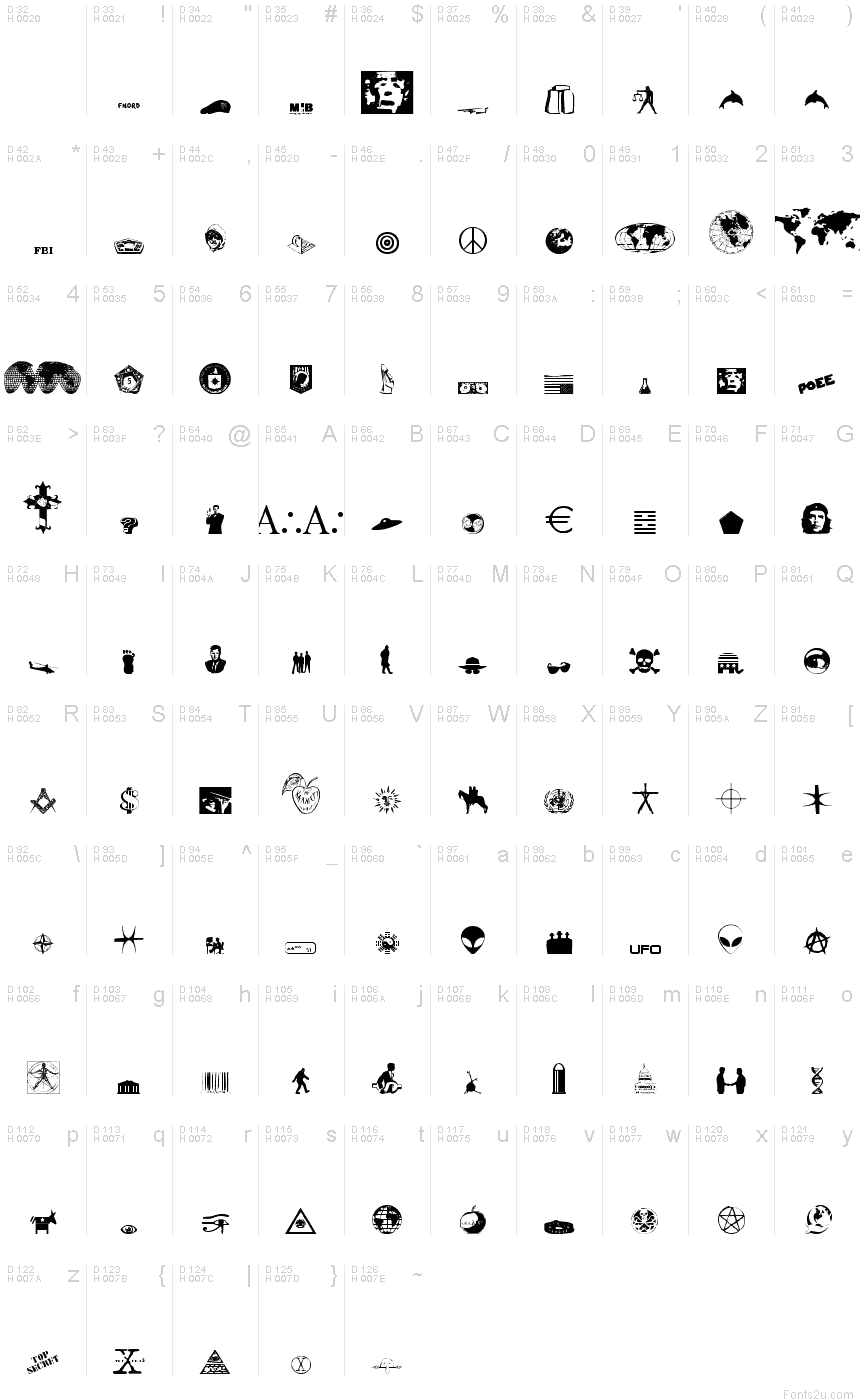
Illuminati
Illuminati font by Iconian Fonts is a free dingbat typeface packed with bold, conspiracy-tinged icons. Each glyph feels like a stark, inky stamp: bullets, footprints, bitten apples, government buildings and other symbols rendered in chunky black shapes with crisp white cuts. The style is unapologetically graphic and slightly gritty, giving your layouts the punch of protest stickers or photocopied zines.
Using Illuminati as spot graphics instantly adds tension and intrigue to posters, flyers, protest art, editorial spreads, game UI, social media graphics, and album covers. The symbols read clearly even at small sizes, but they really snap when scaled up and dropped into high-contrast layouts. This free font pairs well with a clean grotesk or monospaced sans-set the text simple and let the Illuminati icons do the shouting.